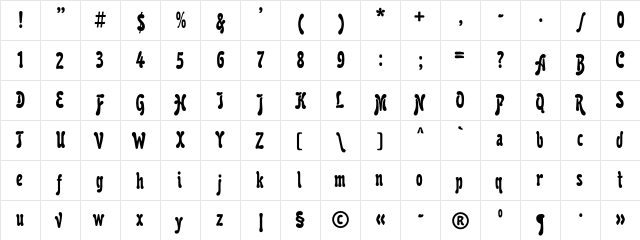
KarollaC Regular
Design Context for KarollaC Typeface
KarollaC is a composed and adaptable typeface that performs quietly and consistently across a wide range of design contexts.